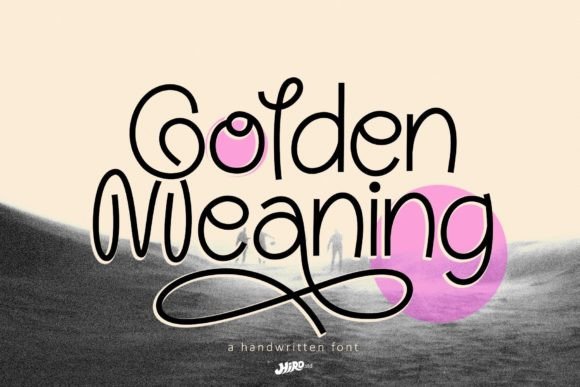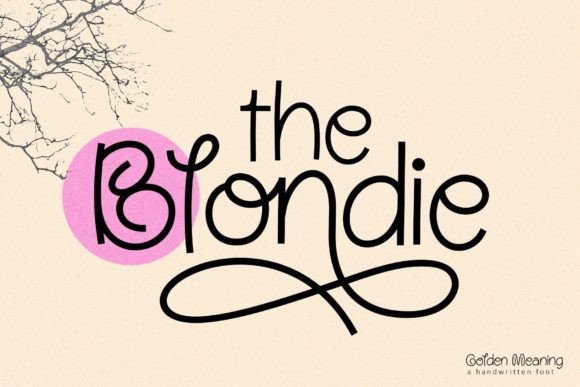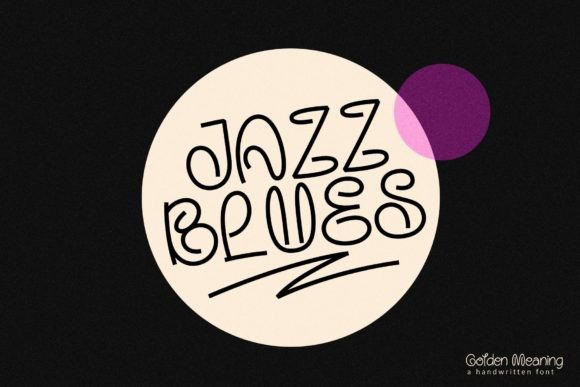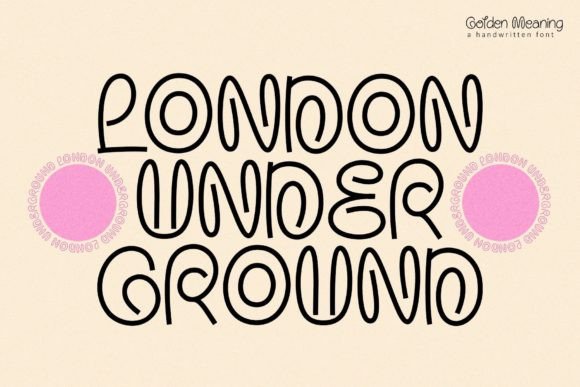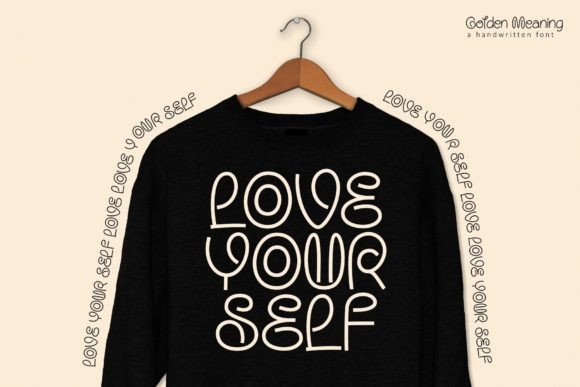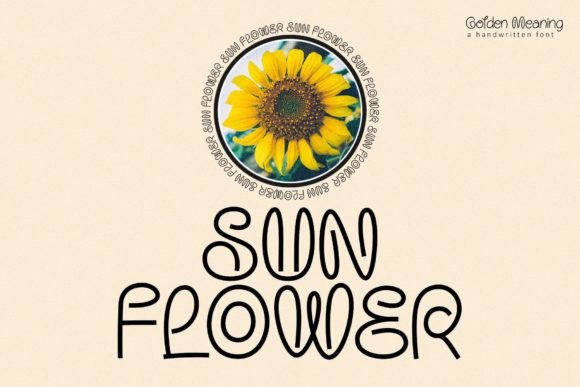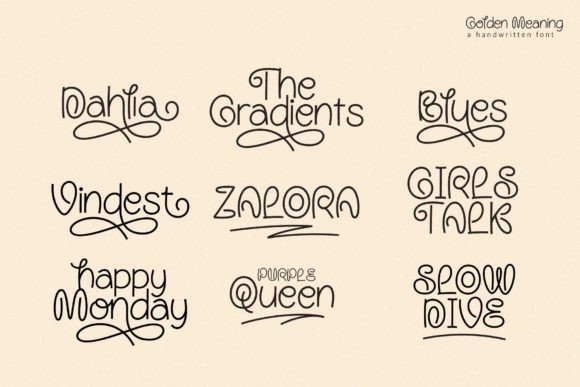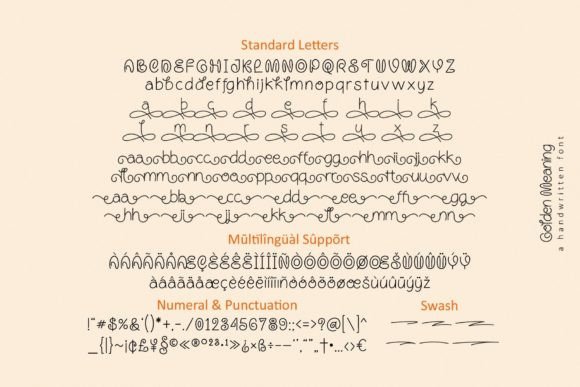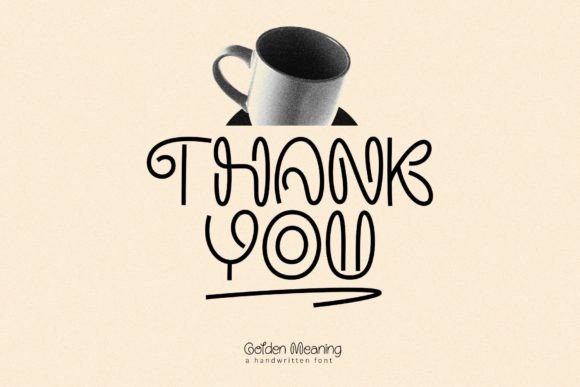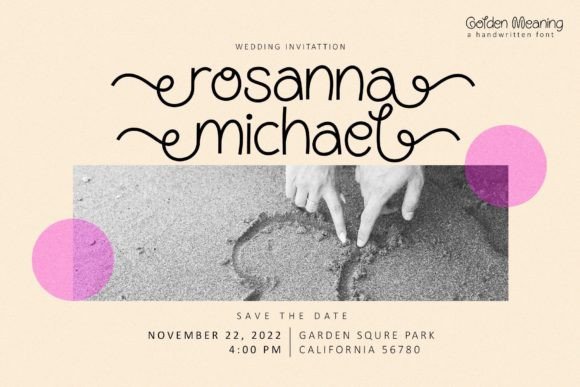
Golden Meaning Font
About Golden Meaning Font
“Golden Meaning is a one-of-a-kind handwritten font that exudes uniqueness and fun. Its distinctive style is sure to captivate a diverse audience, making it an ideal choice for a variety of creative projects, from letterheads and titles to stationery and beyond.
What sets Golden Meaning apart is its originality. Each stroke of this font reflects a sense of creativity and playfulness, making it perfect for those who want to add a touch of character to their designs. Whether you’re working on branding materials, invitations, or marketing collateral, Golden Meaning adds a charming and personalized element that sets your creations apart.
One of the standout features of Golden Meaning is its PUA encoding. The font is meticulously encoded, allowing you to access all the intricate glyphs and swashes effortlessly. This feature opens up a world of design possibilities, enabling you to experiment with various typographic elements and create truly unique and eye-catching compositions.
Imagine designing a custom letterhead for your business with elegant swashes and playful accents, or creating eye-catching titles for your blog posts or social media graphics. With Golden Meaning, you have the freedom to explore different styles and create designs that resonate with your audience.
The versatility of Golden Meaning makes it suitable for a wide range of themes and aesthetics. Whether you’re aiming for a vintage-inspired look, a modern and minimalistic vibe, or a whimsical and playful atmosphere, this font adapts seamlessly to your vision. Its adaptability ensures that your designs are not limited by a specific style, allowing you to express your creativity without constraints.
Furthermore, the handwritten charm of Golden Meaning adds a warm and inviting feel to your projects. In a world filled with digital fonts, this handwritten gem stands out, adding a personal touch that resonates with viewers. It evokes a sense of nostalgia and authenticity, making it particularly appealing for projects that require a genuine and heartfelt connection with the audience.
In summary, Golden Meaning is more than just a font; it’s a tool that empowers your creativity and enhances your designs. Its unique and fun handwritten style, combined with its PUA encoding, makes it a valuable asset for any designer or creative enthusiast. So, whether you’re working on professional branding or crafting personalized stationery, let Golden Meaning elevate your projects to new heights. Embrace the charm of handwritten elegance and create designs that leave a lasting impression with Golden Meaning.”